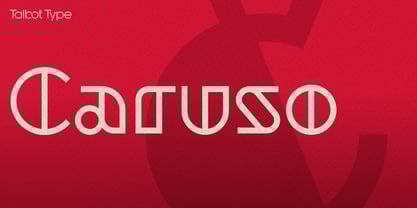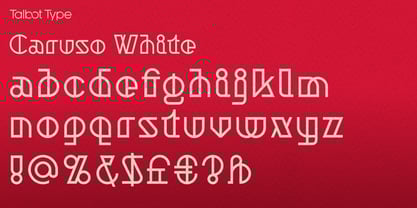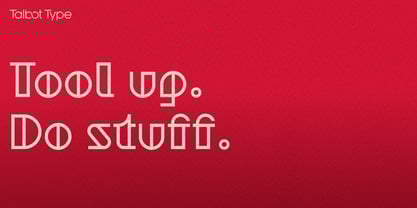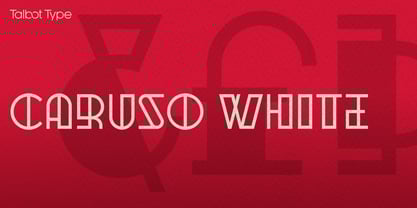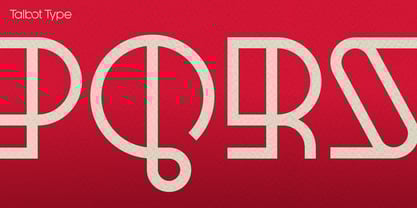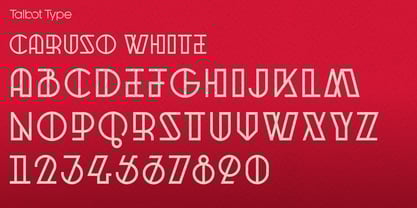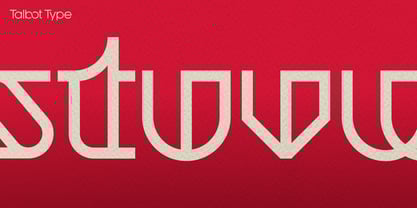
Caruso White
by Talbot Type
The Caruso White Font Family was designed by Adrian Talbot and published by Talbot Type. Caruso White contains 2 styles and family package options. More about this family
Caruso White is a sharp, geometric display font with an Art Deco flavour. Unlike Art Deco styles of the 1920s and 30s, it comes with full upper and lower case sets and accented characters for all Western ad Central European languages making it a genuinely practical font. It's also available as an solid variation – Caruso Black.
Most of my fonts are influenced by the classic movements of the twentieth century — Modernism, the Bauhaus, Constructivism and Art Deco — I aspire to create timeless designs, valid now and in the future. These are not showy faces, but practical, hard-working text and display fonts. Occasionally I branch out into more experimental, display fonts, possibly as a result of my years as a graphic designer with a focus on identities and communications and the need to stand out from the crowd — in a good way.